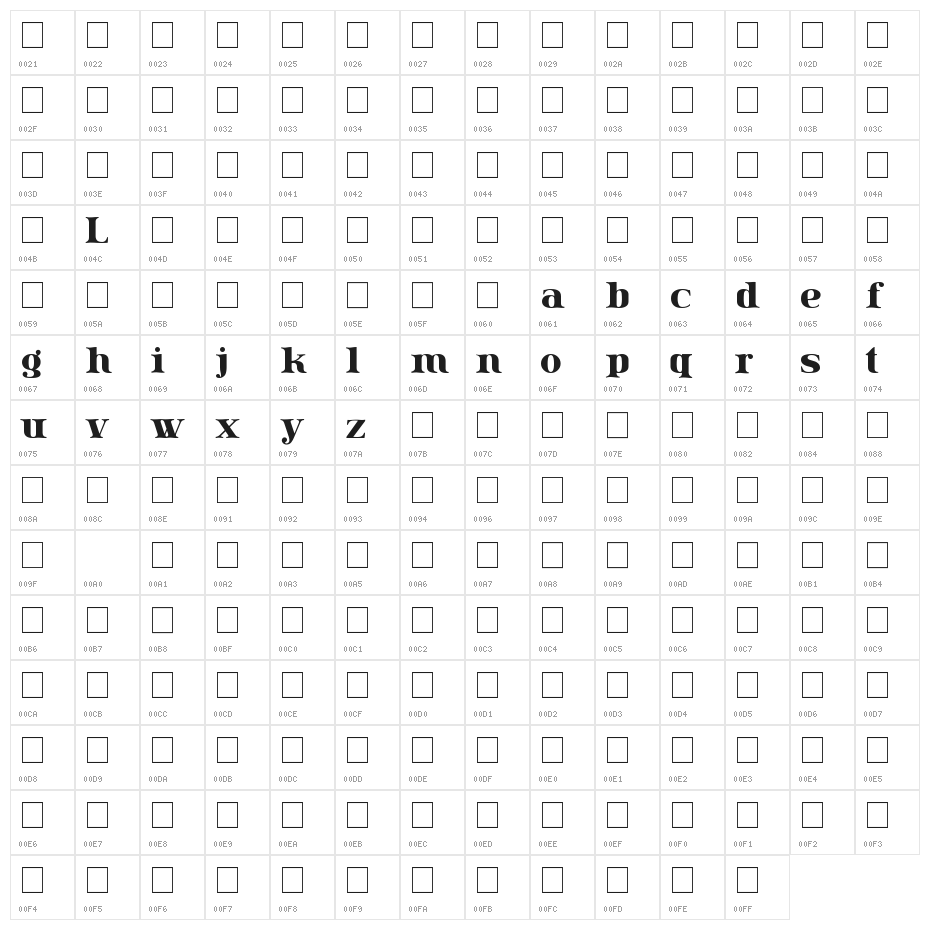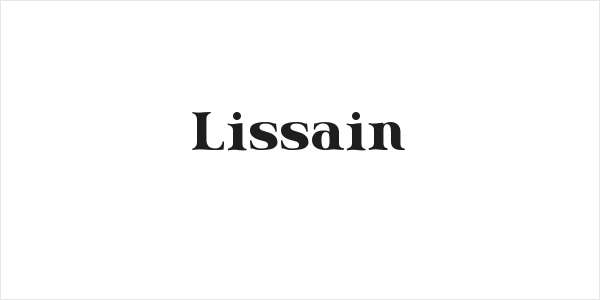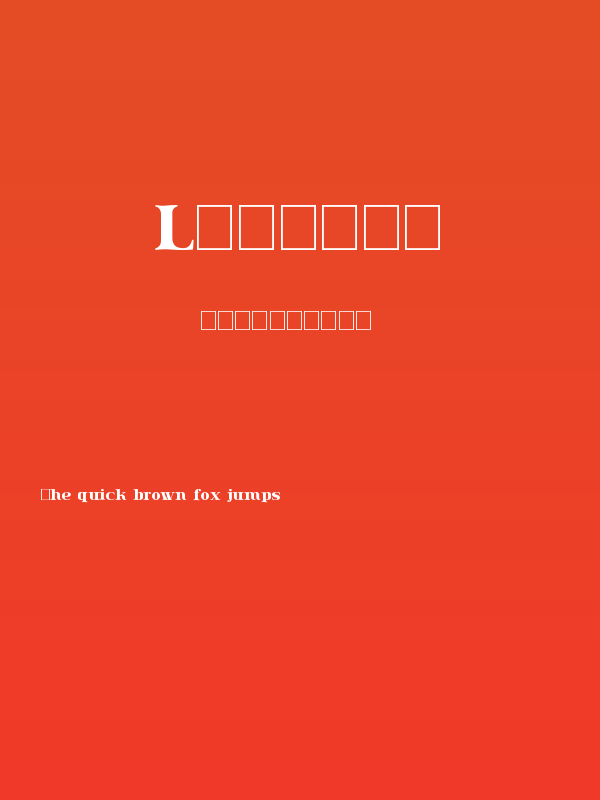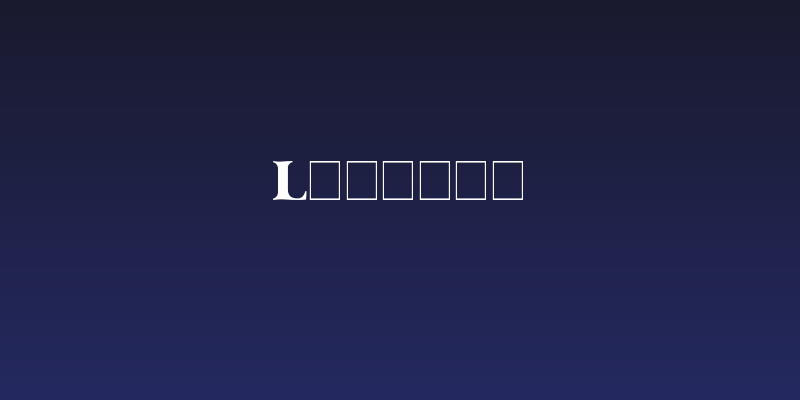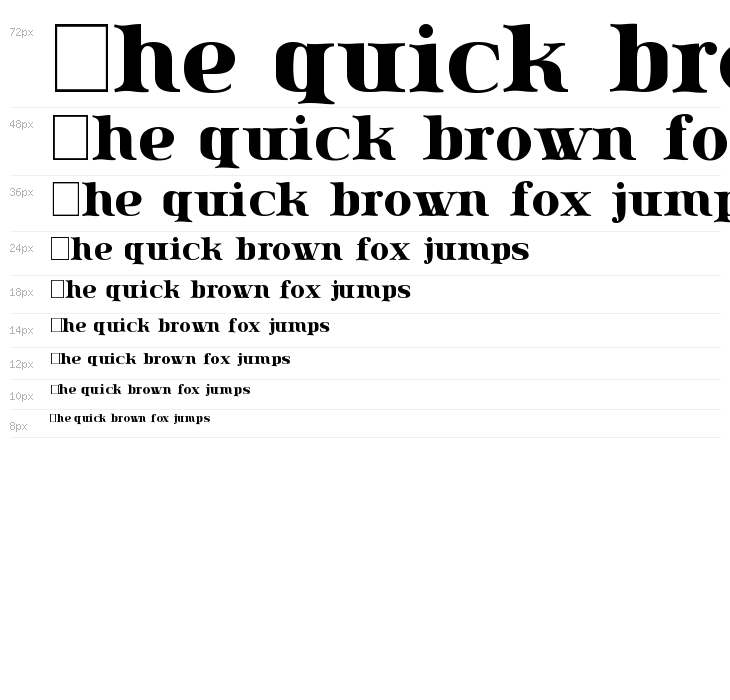
Lissain Font
Lissain Description
This font features a bold and dramatic style with thick, strong strokes and high contrast between thick and thin lines. The serifs are pronounced, adding a touch of elegance and sophistication. The lowercase letters have a slightly condensed appearance, while the uppercase letters exhibit a more traditional serif style. The overall design is reminiscent of classic serif fonts, making it suitable for projects that require a touch of formality and tradition. Its boldness ensures readability, even at smaller sizes, while the contrast in stroke thickness adds visual interest.
| Proposed Projects | Ideal for book covers, editorial design, branding, and formal invitations. |